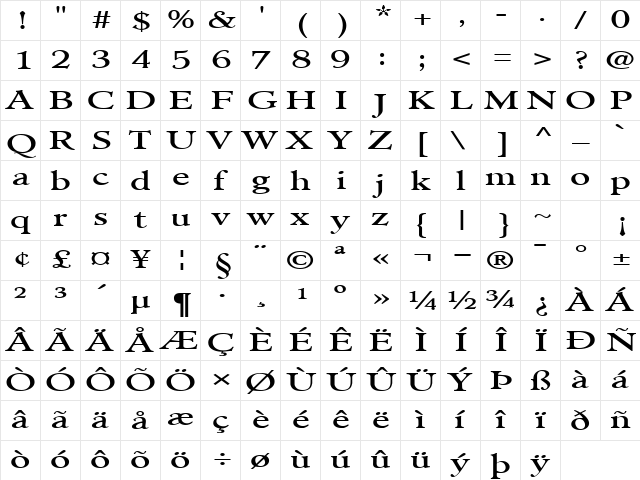
PilgrimExtended Regular
PilgrimExtended Family
PilgrimExtended Regular
Design Context for PilgrimExtended
PilgrimExtended is a composed and adaptable typeface that performs quietly and consistently across a wide range of design contexts.
Pro Tip: Use PilgrimExtended in both headline and body roles to test its range before committing to a single application.